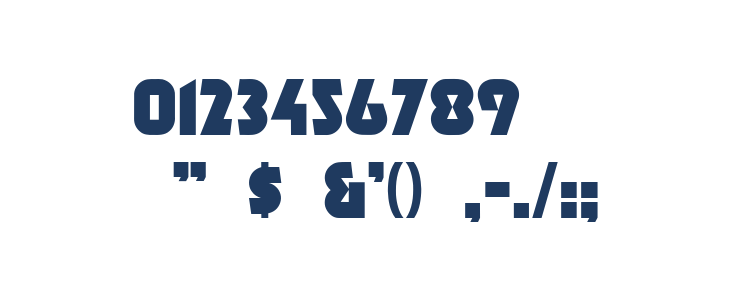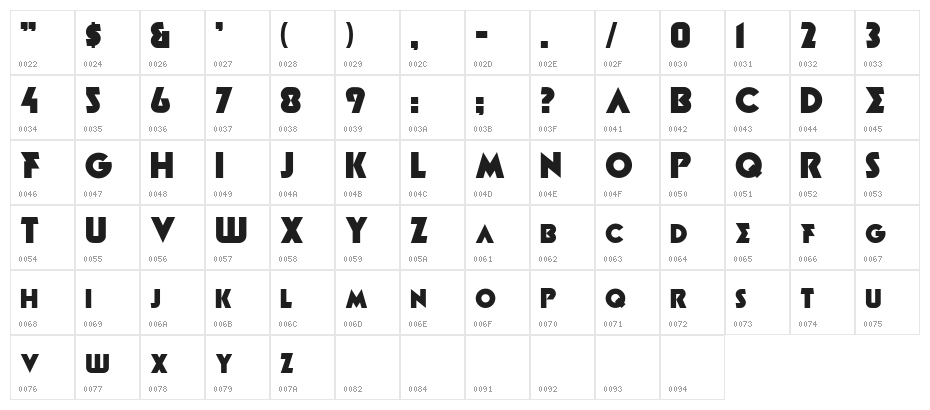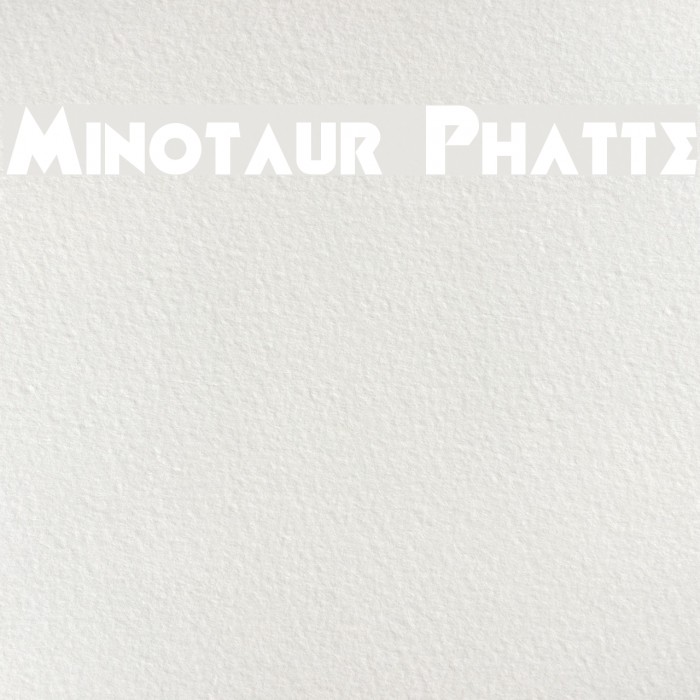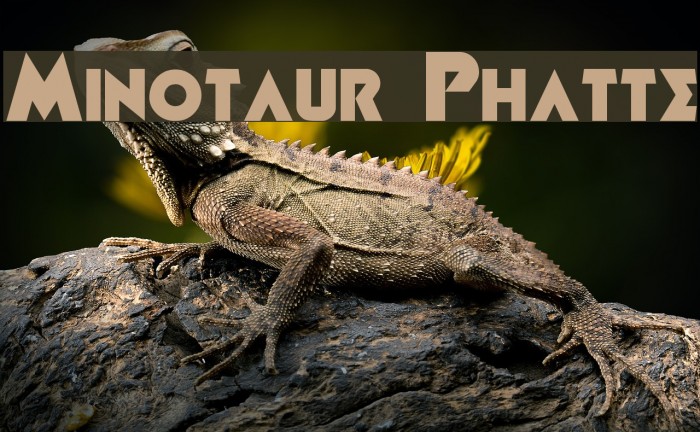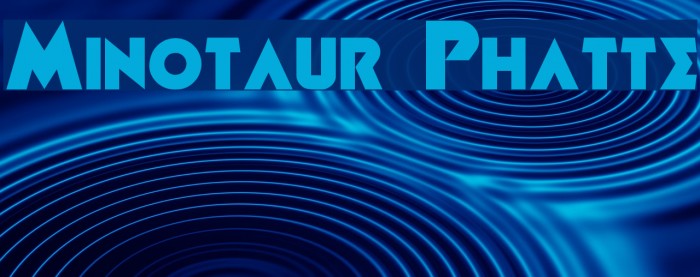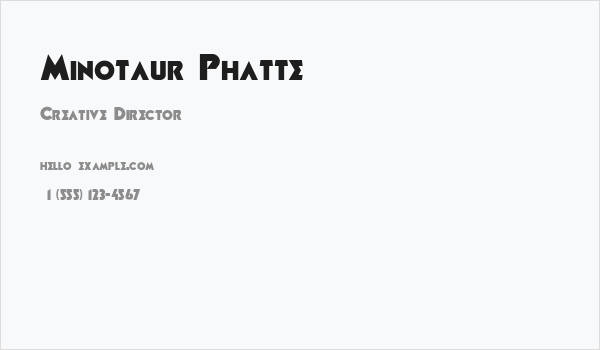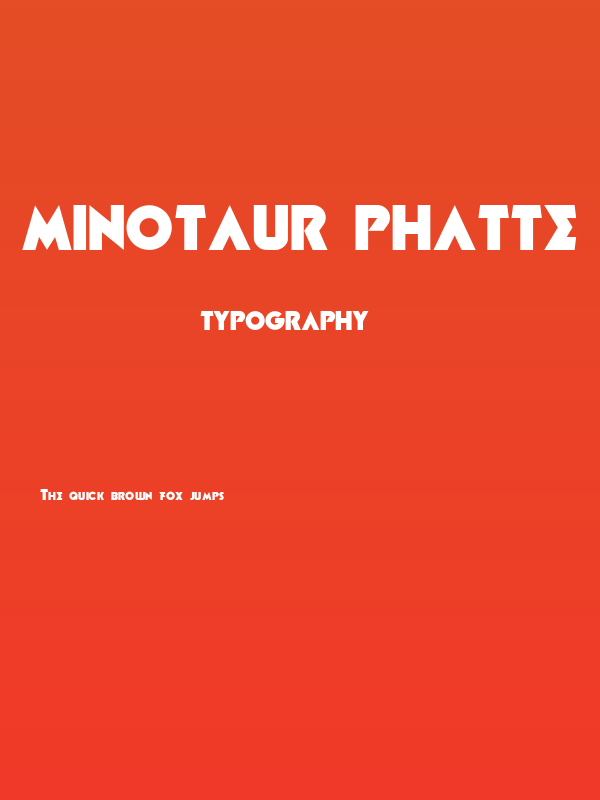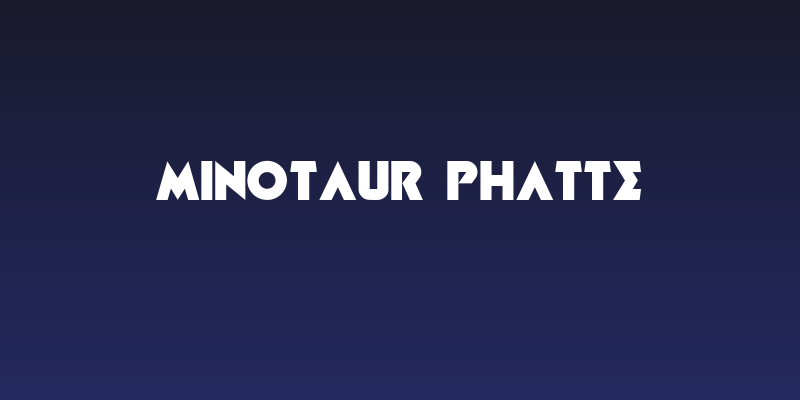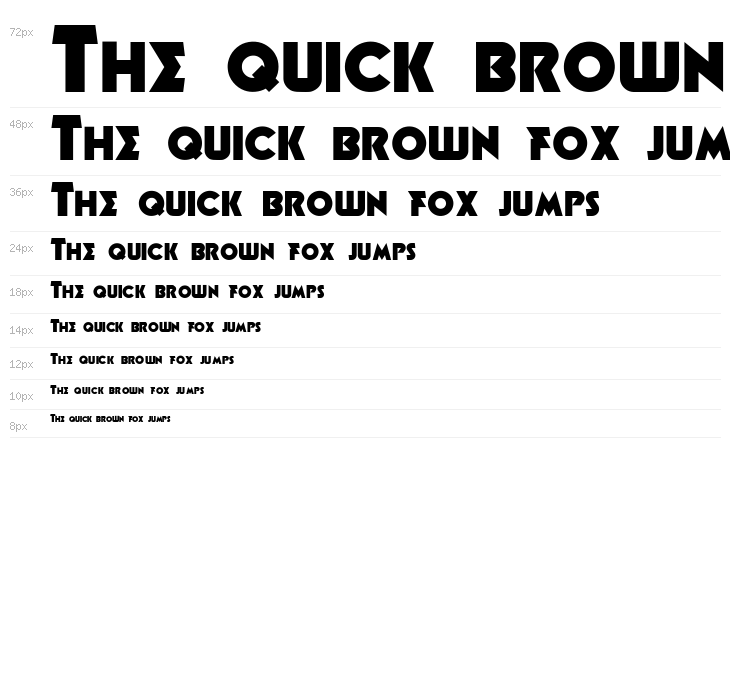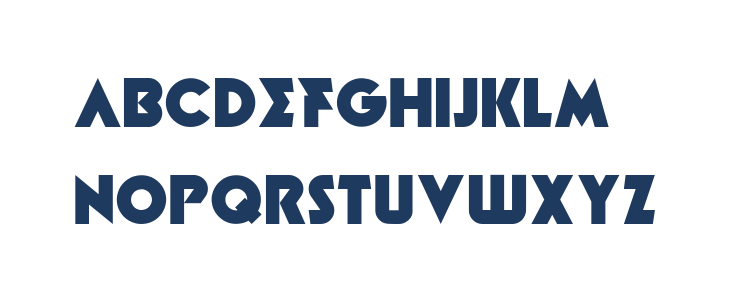
Minotaur Phatte Font
Minotaur Phatte Description
This font exhibits a bold and striking design, characterized by its geometric and angular letterforms. The uppercase and lowercase letters maintain a consistent style, with sharp edges and a strong presence. The numbers and special characters follow the same aesthetic, ensuring uniformity across all glyphs. The overall appearance is modern and impactful, making it suitable for attention-grabbing designs. The font's unique style is reminiscent of futuristic or sci-fi themes, with a touch of retro influence. Its bold weight and distinct shapes make it stand out, ideal for projects that require a strong visual statement.
| Proposed Projects | Ideal for branding, posters, headlines, and any design requiring a strong, futuristic aesthetic. |